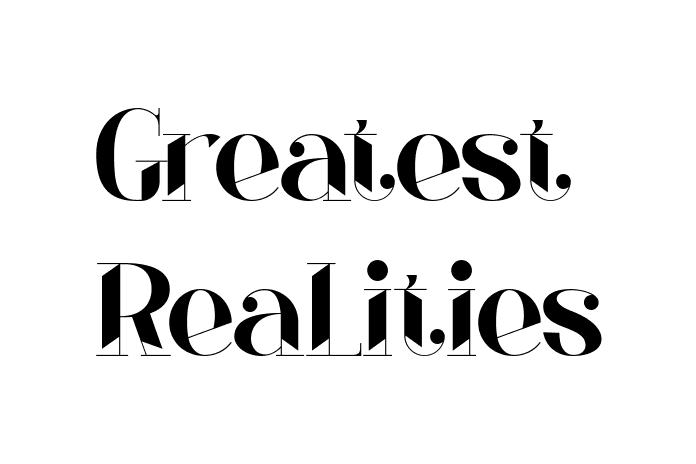
Colibero Font
Colibero Font is a modern serif typeface with visual elegance, and beautiful ligatures clear, making your work look true and attractive.It is perfect for designing templates, brochures, videos, advertising branding, logos, and more.
Font name Colibero Font
Font designer Artnivora Std
Font Family Colibero
Typeface classification Basic,Serif